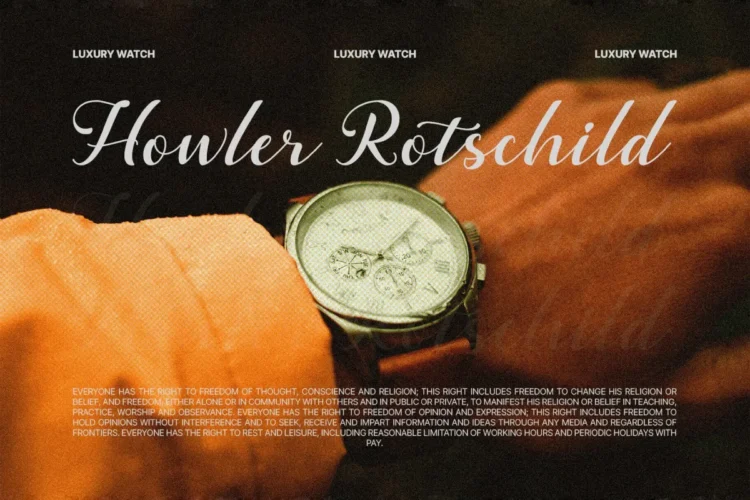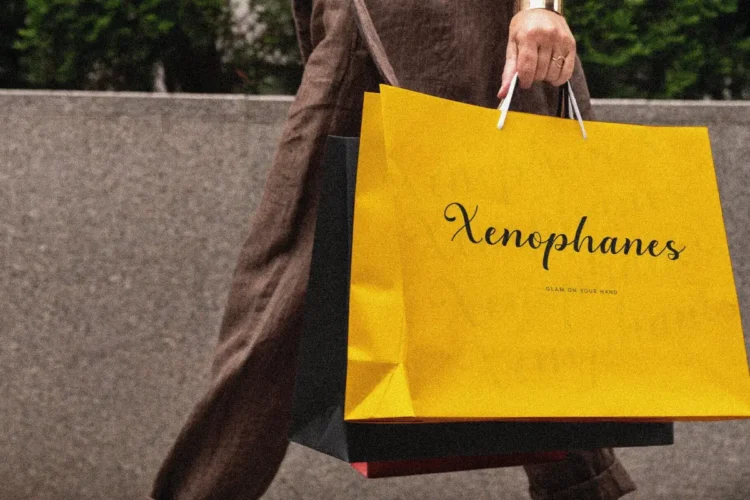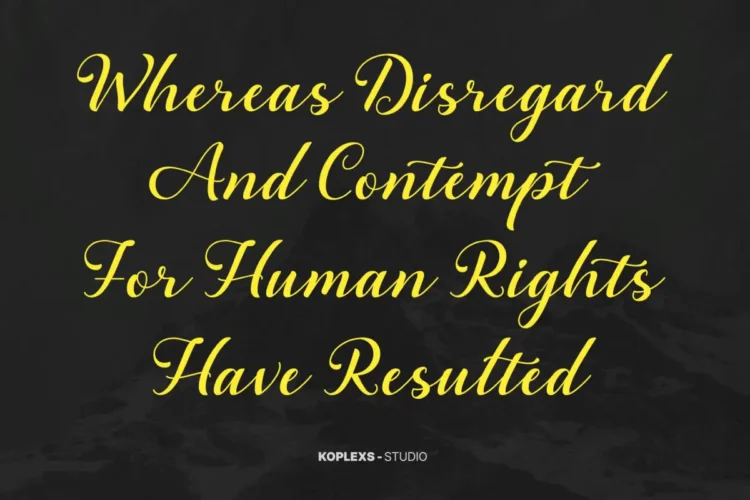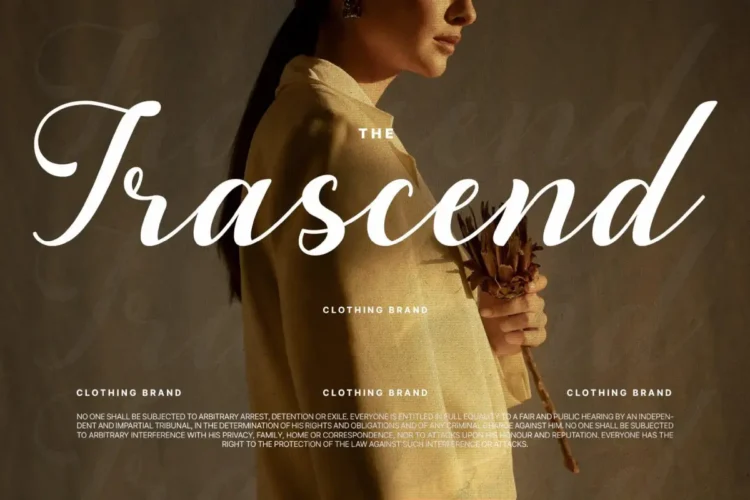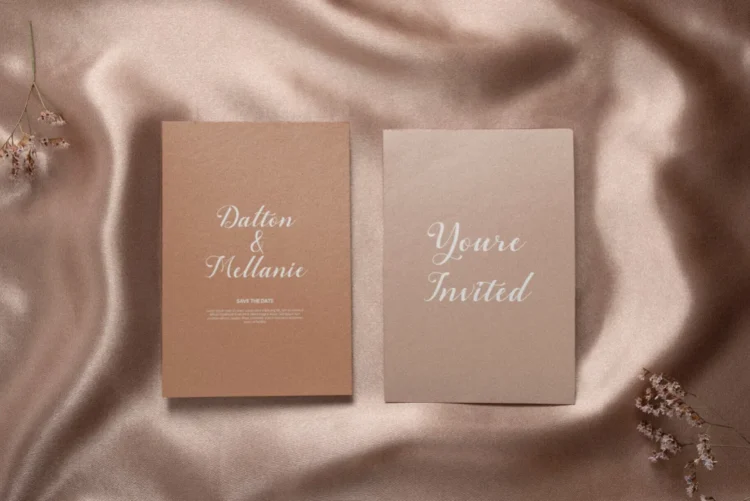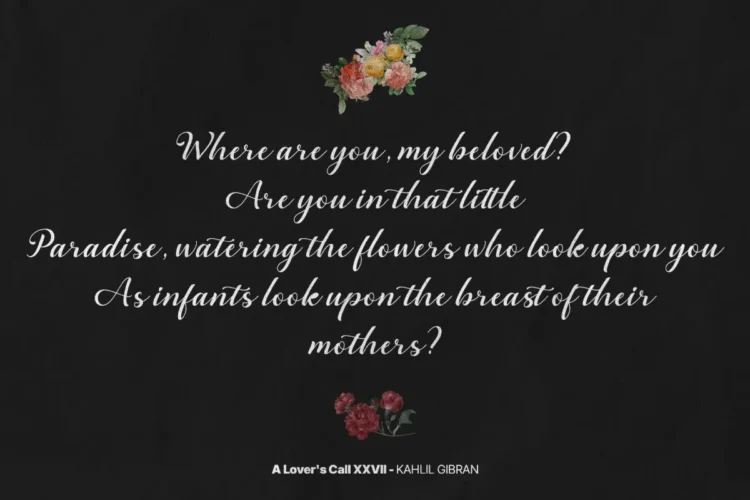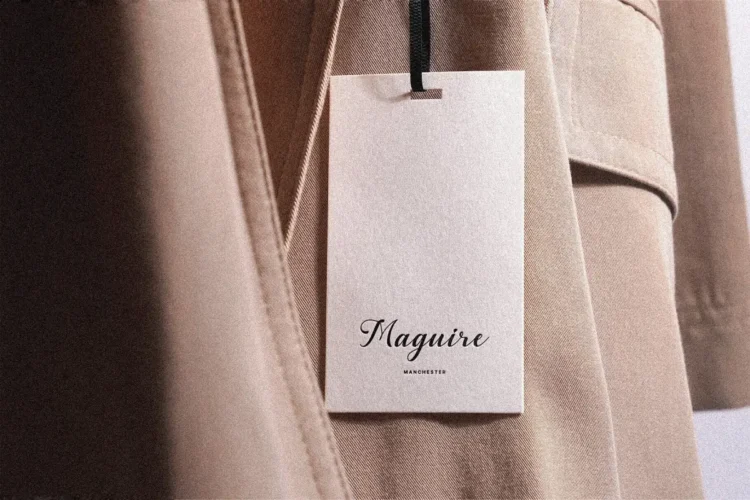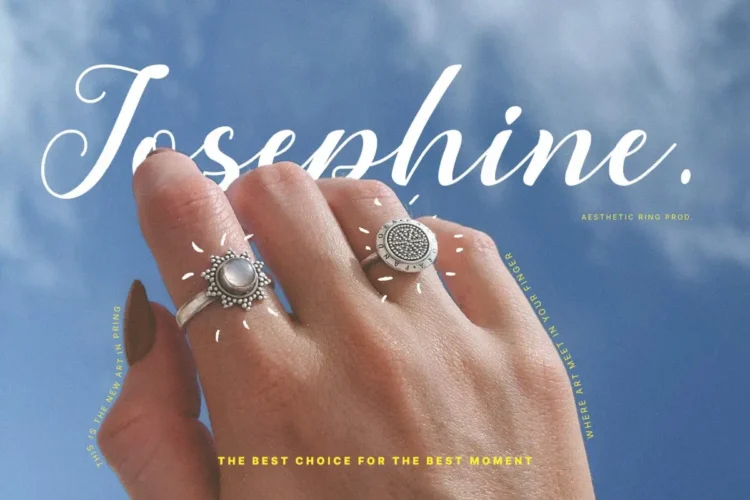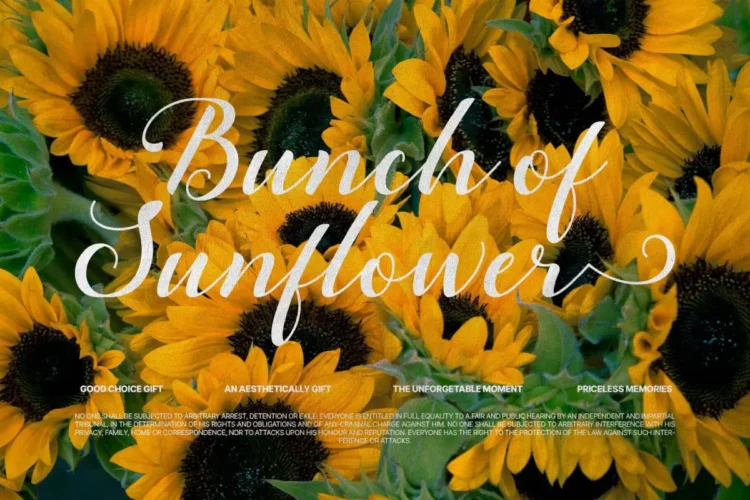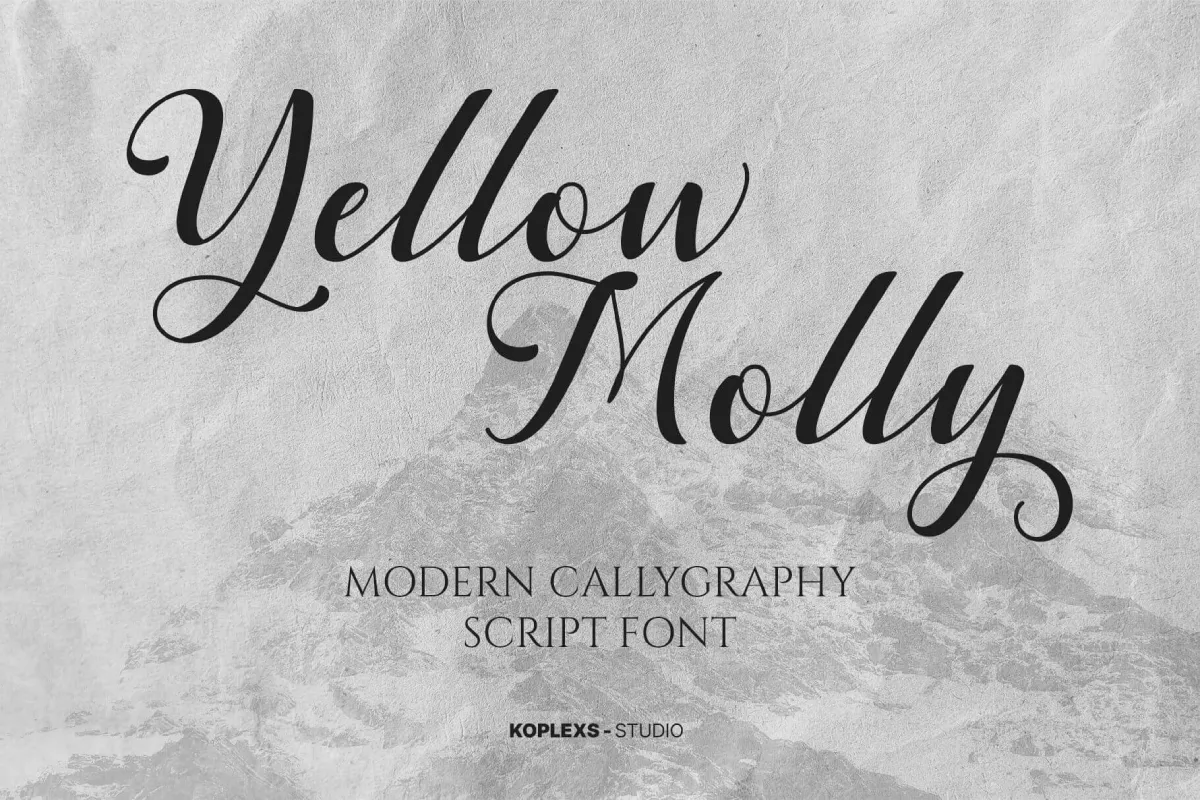
Yellow Molly Font – Elegant Modern Calligraphy Script Font for Branding & Wedding Design
Yellow Molly Font is a modern calligraphy script font that exudes timeless elegance and sophistication. Designed with graceful curves and flowing strokes, this signature font is perfect for elevating any visual project from wedding invitations, logo designs, luxury branding, cosmetic packaging, social media posts, magazines, product labels, to elegant headings. Its delicate yet confident letterforms make it both aesthetic and versatile, fitting for any style that seeks charm and refinement.
As a cursive font, Yellow Molly offers a handwritten, romantic touch ideal for wedding stationery, boutique branding, feminine logos, and personal signatures. It also shines as a branding font, heading font, calligraphy font, modern font, elegant font, and luxury font, giving your designs a professional and premium look. Whether you’re creating fashion labels, product tags, greeting cards, or cosmetic branding, this font adds an exclusive and modern flair.
Yellow Molly Font is crafted to balance beauty and readability perfect for designers who value quality and expression in their work.
Yellow Molly Font is versatile and works beautifully for :
- Wedding invitations & stationery
- Elegant logo & branding design
- Fashion & beauty product packaging
- Social media posts & inspirational quotes
- Luxury branding, magazines & headlines